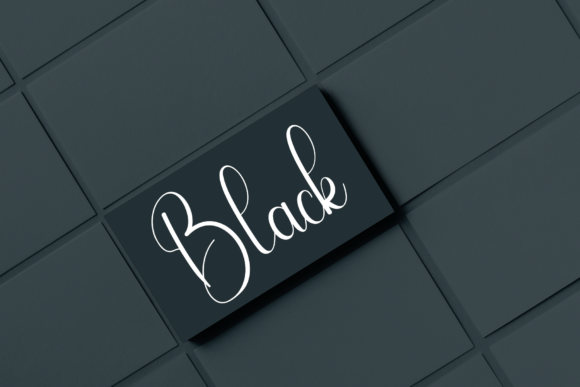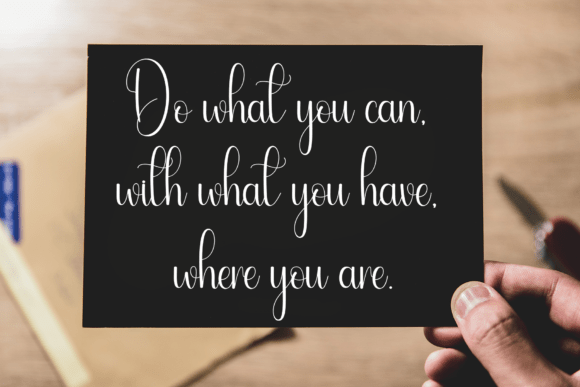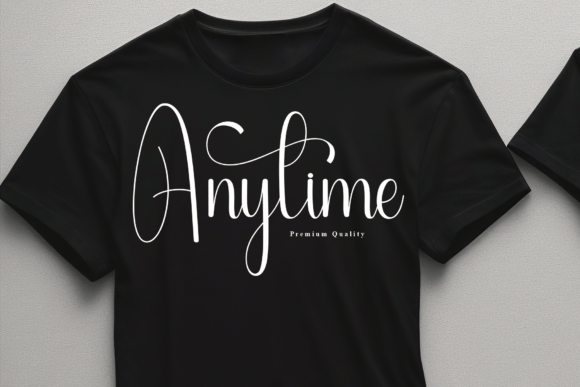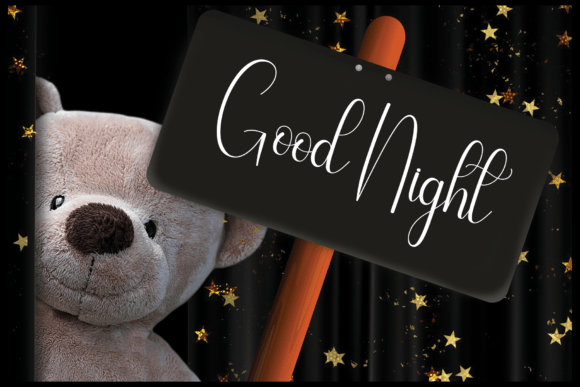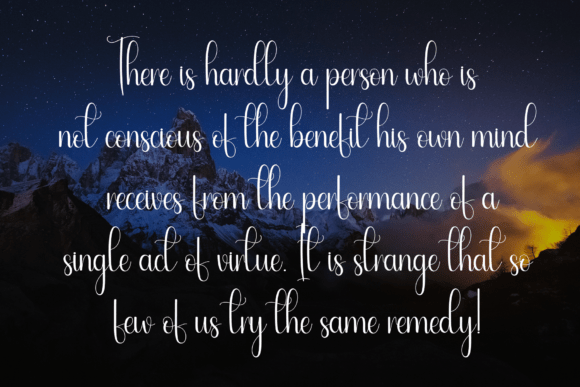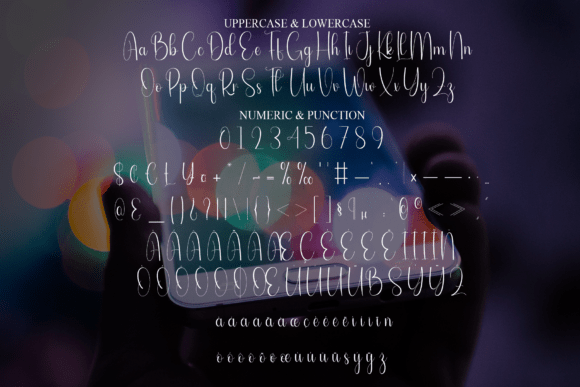
Introducing Digital: The Ultimate Stylish Handwritten Script Font
In the world of digital design, typography plays a crucial role in conveying the tone and personality of a brand. A well-crafted font can elevate a design from ordinary to extraordinary, making it essential for designers and crafters to choose the right typeface for their projects. If you’re looking for a font that exudes modern elegance with a playful touch, look no further than Digital, a stylish handwritten script font that’s taking the design world by storm.
The Charm of Digital
Digital is a beautifully crafted font that blends fluid strokes and charming curves to bring a personal feel to any design. Its unique blend of modern sophistication and playfulness makes it an ideal choice for designers looking to add a touch of warmth and creativity to their projects. Whether you’re working on a logo, packaging, or invitation, Digital is the perfect typeface to make your design stand out.
Key Features of Digital
- Fluid Strokes: Digital’s fluid strokes give it a natural, handwritten feel that’s perfect for designs that require a personal touch.
- Charming Curves: The font’s charming curves add a touch of elegance and sophistication, making it suitable for high-end designs.
- Modern Elegance: Digital’s modern design ensures that it looks great in both digital and print formats.
- Playful Touch: The font’s playful touch adds a creative and whimsical feel to any design.
Why Choose Digital?
So, why should you choose Digital for your next design project? Here are just a few reasons:
- Versatility: Digital is a versatile font that can be used for a wide range of design projects, from logos and packaging to invitations and more.
- Easy to Read: The font’s clear and legible design makes it easy to read, even at small sizes.
- Unique Style: Digital’s unique style ensures that your design will stand out from the crowd.
- Time-Saving: With Digital, you can create professional-looking designs in no time, saving you time and effort.
Digital is an excellent choice for designers and crafters who want to add a personal touch to their projects. Whether you’re creating a logo, branding materials, or craft projects, this font is sure to impress. Its unique blend of modern elegance and playfulness makes it perfect for:
- Logos: Create a memorable logo that reflects your brand’s personality with Digital.
- Packaging: Add a touch of sophistication and elegance to your packaging designs with Digital.
- Invitations: Create beautiful and unique invitations that will leave a lasting impression on your guests.
- Craft Projects: Add a personal touch to your craft projects, such as handmade cards, gift tags, and more.
Tips for Using Digital
To get the most out of Digital, here are a few tips:
- Experiment with Sizes: Digital looks great at a range of sizes, so don’t be afraid to experiment to find the perfect fit for your design.
- Pair with Other Fonts: Try pairing Digital with other fonts to create a unique and visually appealing design.
- Use in Combination with Images: Digital looks great in combination with images, so try using it to add a personal touch to your designs.
In conclusion, Digital is a stylish handwritten script font that’s perfect for designers and crafters looking to add a touch of modern elegance and playfulness to their projects. Its fluid strokes, charming curves, and unique blend of sophistication and creativity make it an excellent choice for a wide range of design projects. With its versatility, ease of use, and unique style, Digital is sure to become a favorite in your font collection.